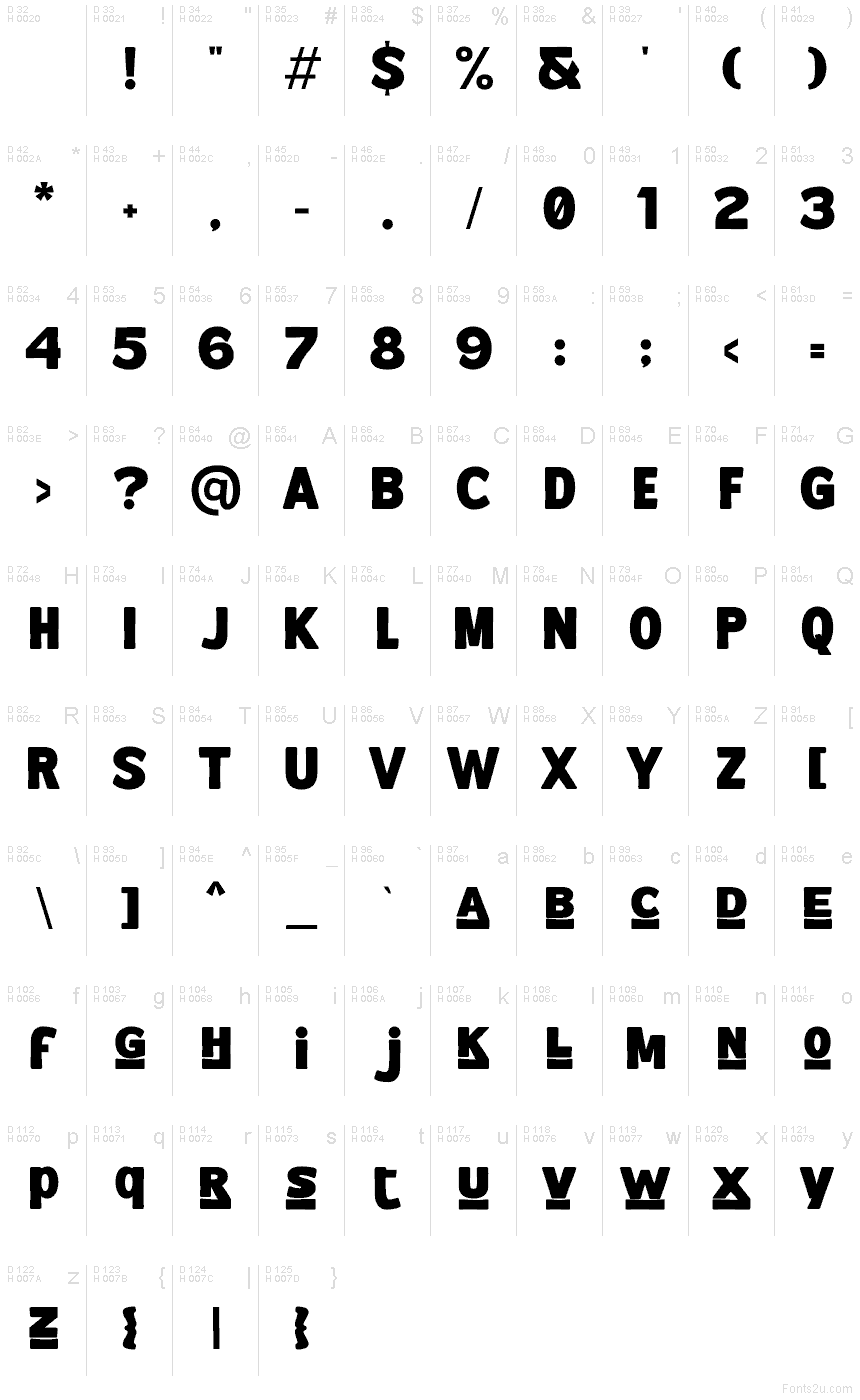
Thelamus
Thelamus font by ToniStudio is a free bold display font. It stands out with chunky letterforms that perch on thick “shelf” bases, like blocky pedestals that lock a word to the baseline. Soft, rounded corners and slightly uneven silhouettes add a handmade punch, while the heavy massing delivers instant impact and great legibility against busy backgrounds.
Using Thelamus, headlines hit hard and stay put—great for posters, game titles, snack packaging, festival branding, stickers, and YouTube thumbnails. The anchored rhythm keeps lines steady, so stacked layouts feel stable rather than shouty. This free font shines large; give it a touch of extra tracking and pair with a light, condensed sans for secondary text.